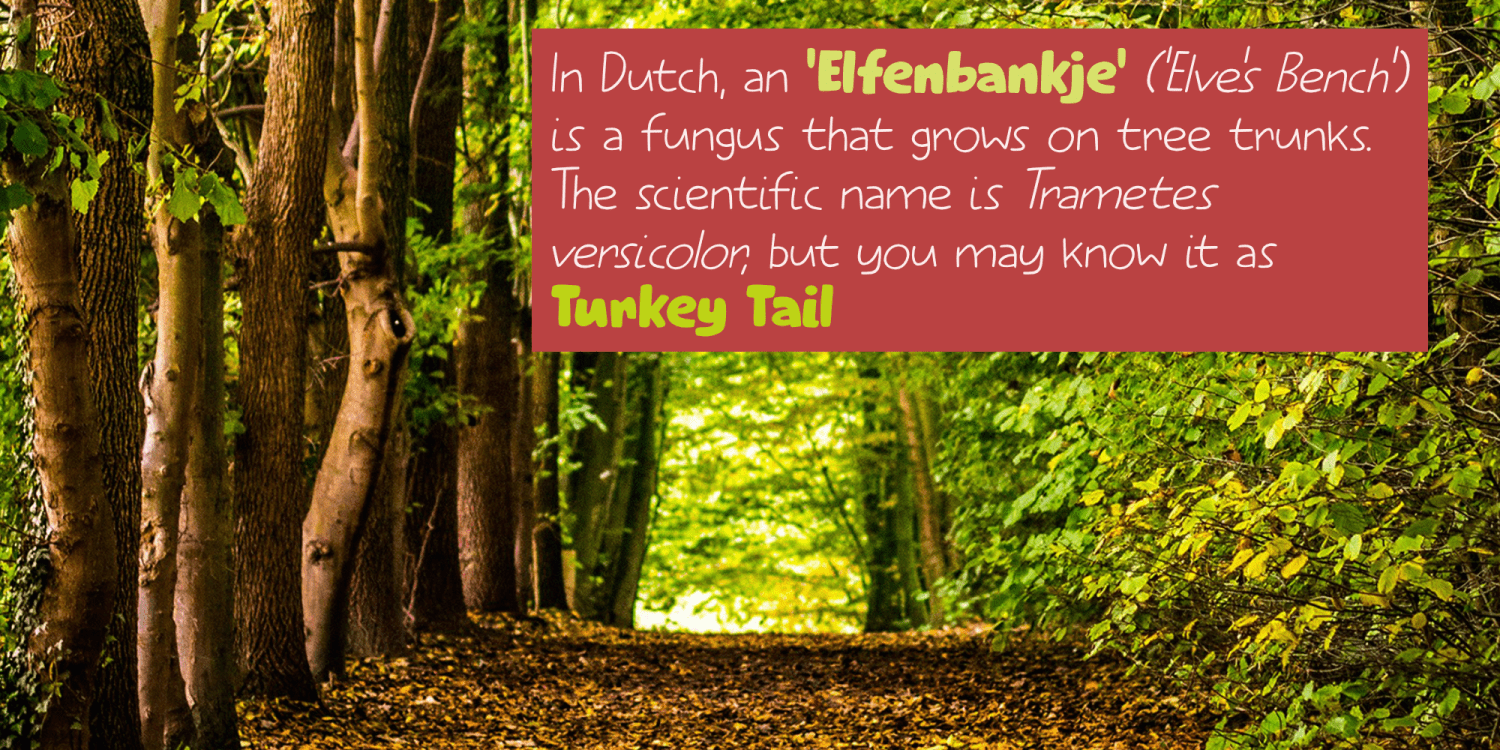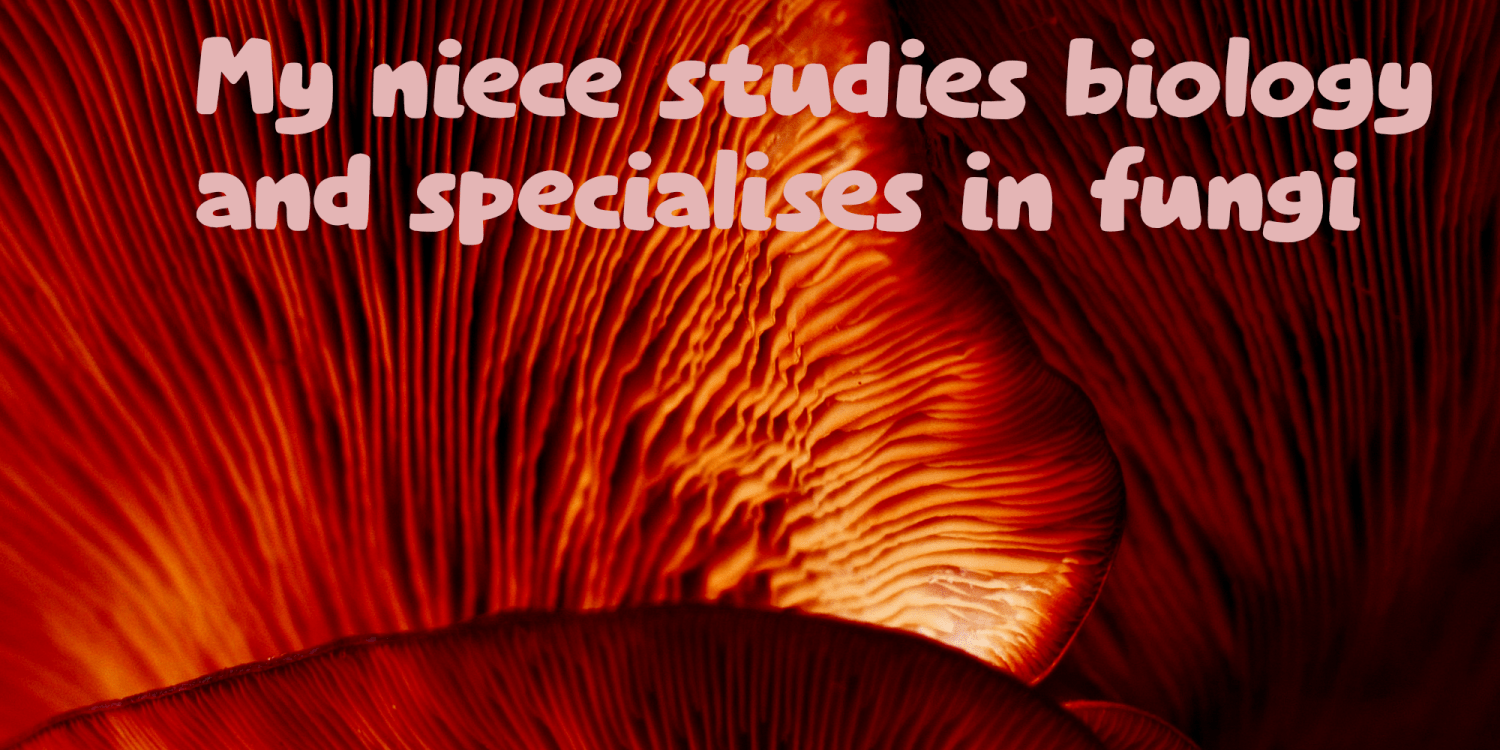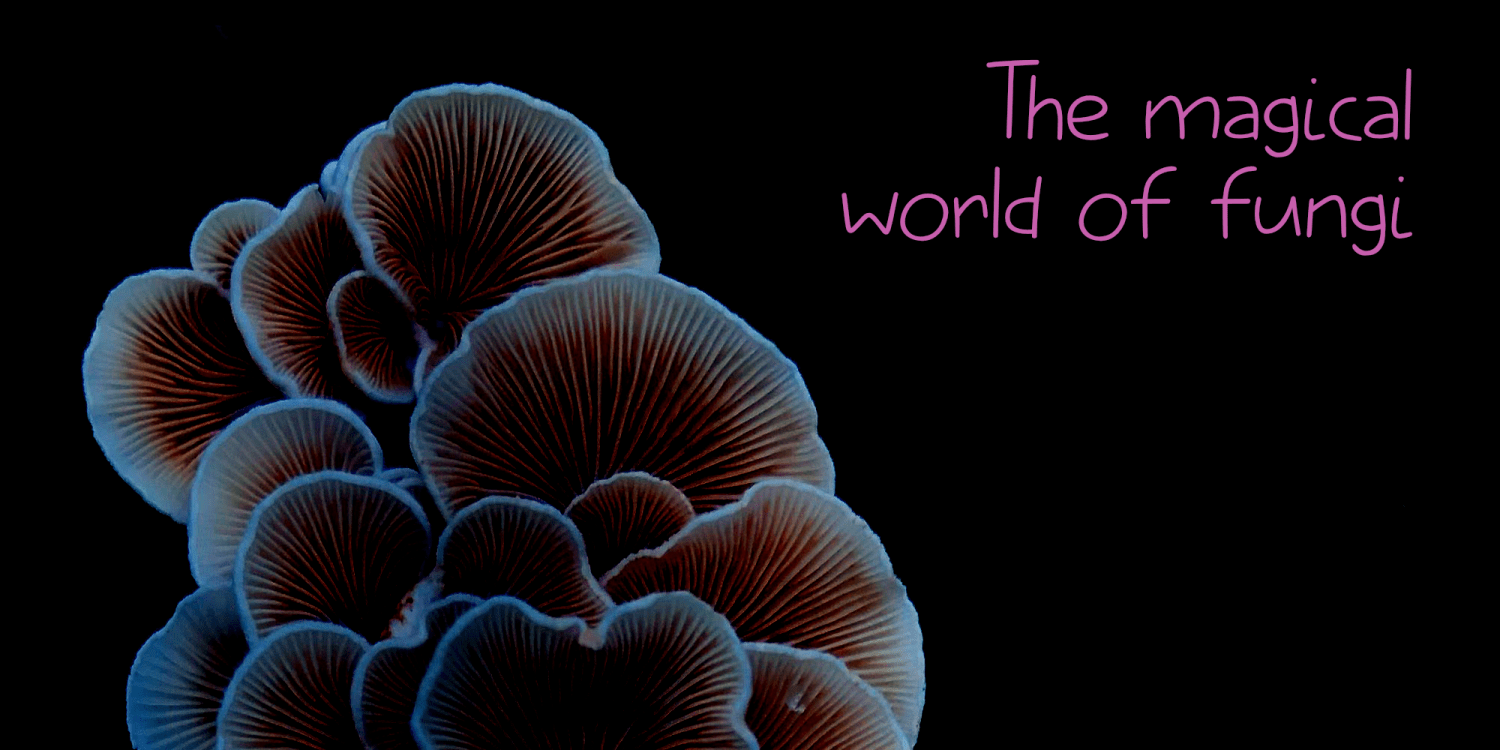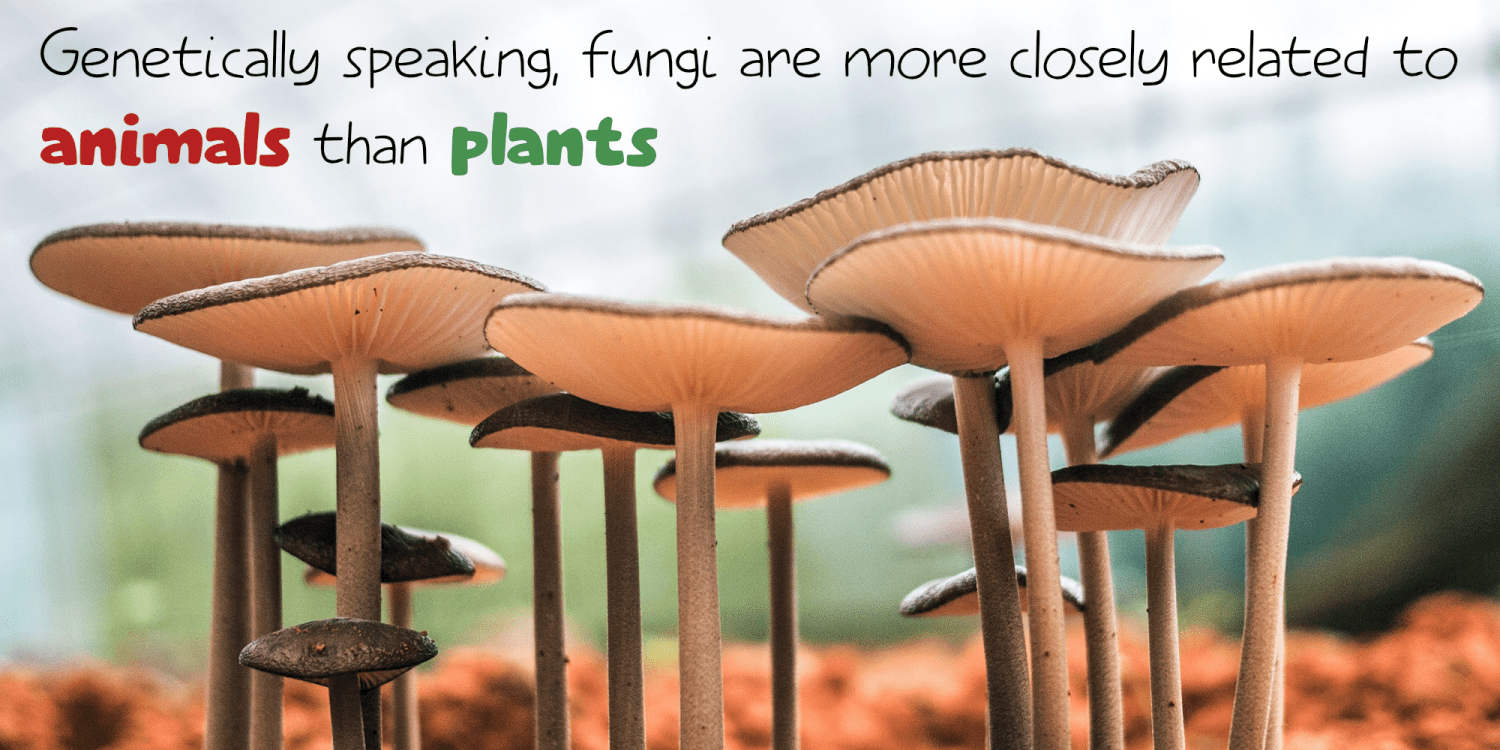
Elfenbankje
Elfenbankje in Dutch means: ‘little bench for Elves’. It is a kind of fungus that grows in deciduous forests all over the world and is know in English as ‘Turkey Tail’. I  came up with this name, because I often take my kids for a walk in the forest and they love to use an app called Obsidentify, where you can upload a picture of a leaf, a bug or a mushroom. The app will then tell you what you found! We discovered a lot of ‘Elfenbankjes’ in the forest, so there you have it!
Elfenbankje is a nice font family, consisting of a ‘fat’ and a ‘light’ version, which work together well.